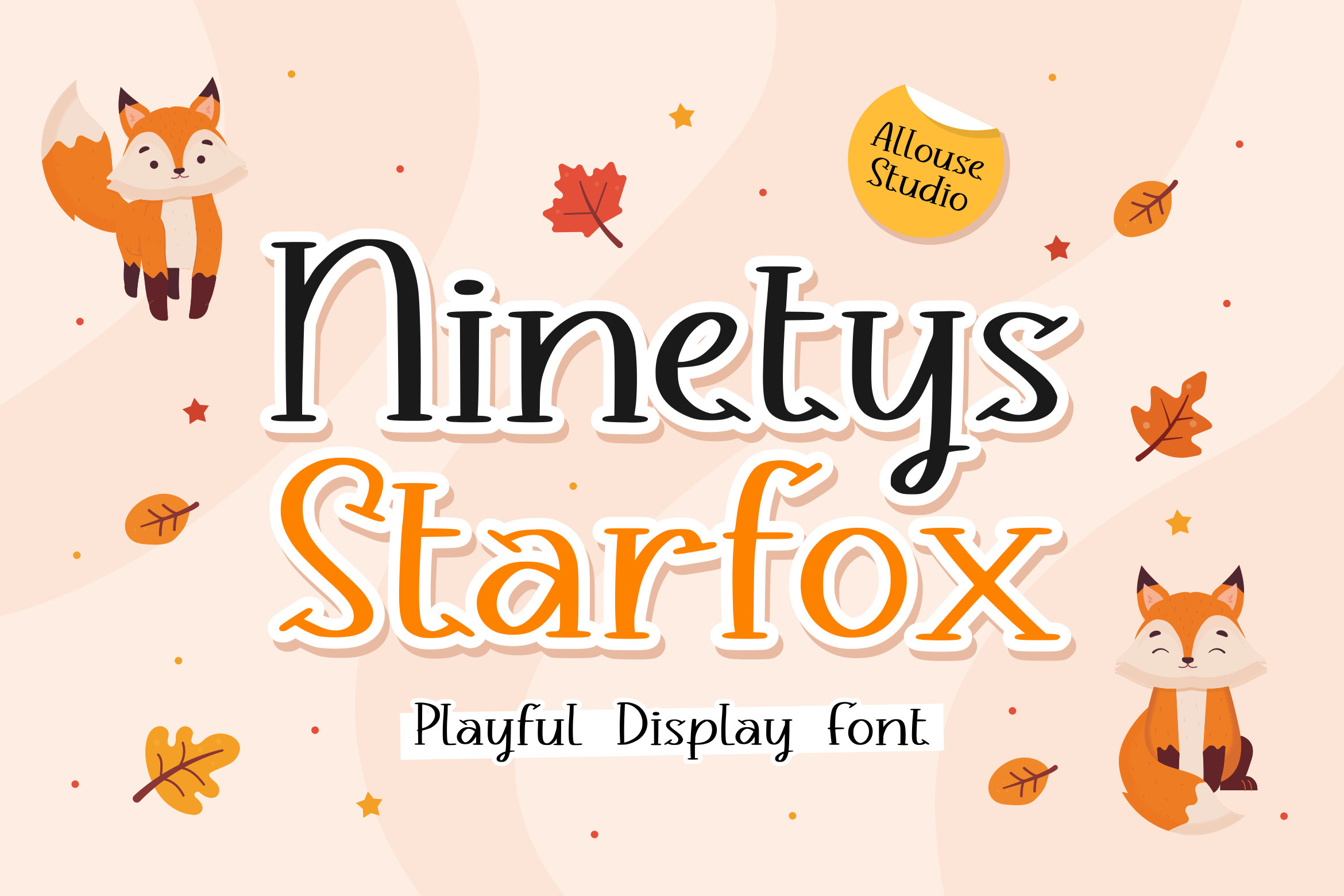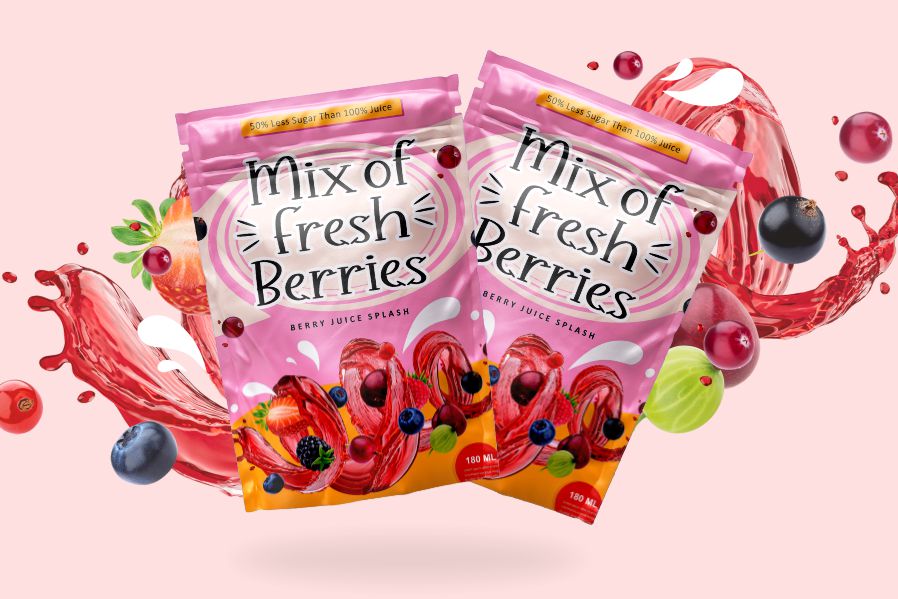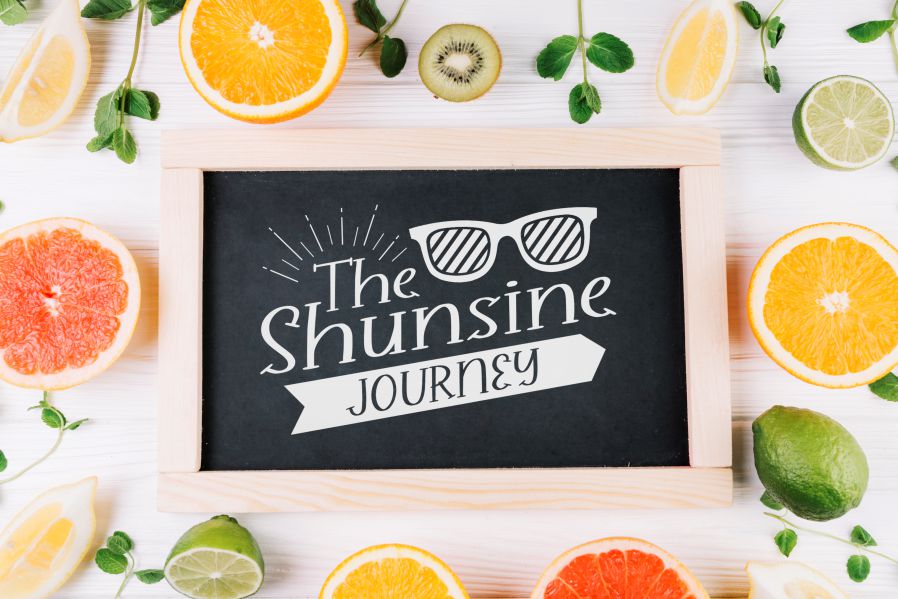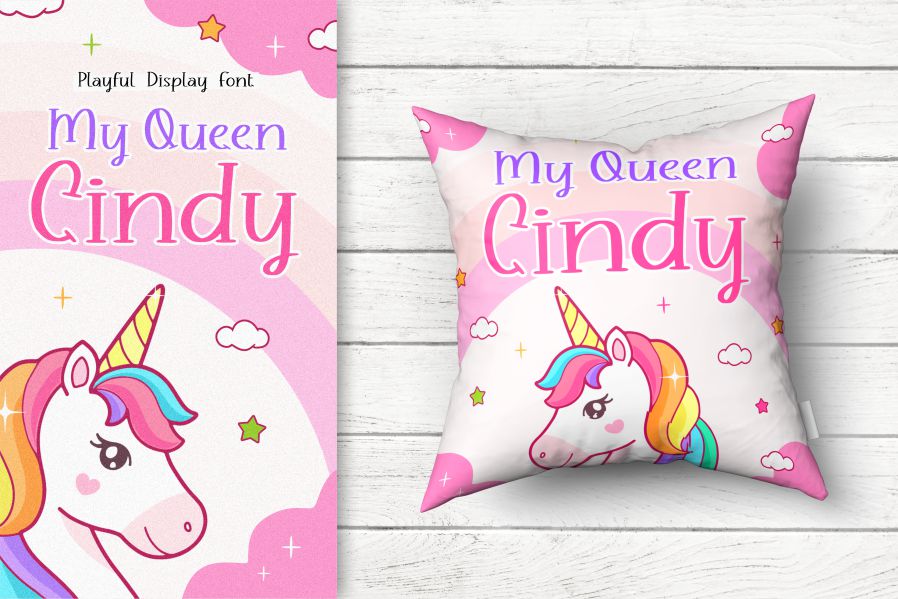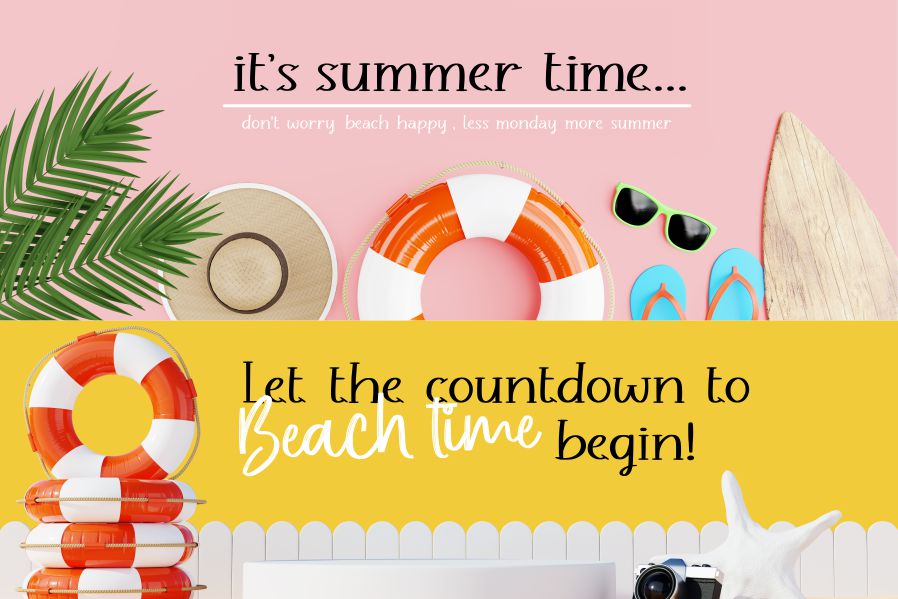
Ninetys Starfox Font
Ninetys Starfox Display Font
This is A Playful Display Font. Ninetys Starfox is perfect for product packaging, branding project, megazine, social media, wedding, or just used to express words above the background. This font includes OTF&TTF&Woff, Ninetys Starfox also multilingual support.